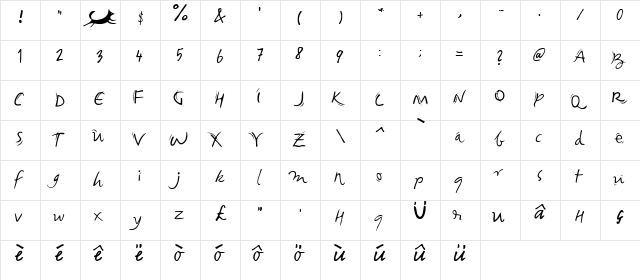
Foxhop Regular
Design Context for Foxhop Typeface
Foxhop is a composed and adaptable typeface that performs quietly and consistently across a wide range of design contexts.